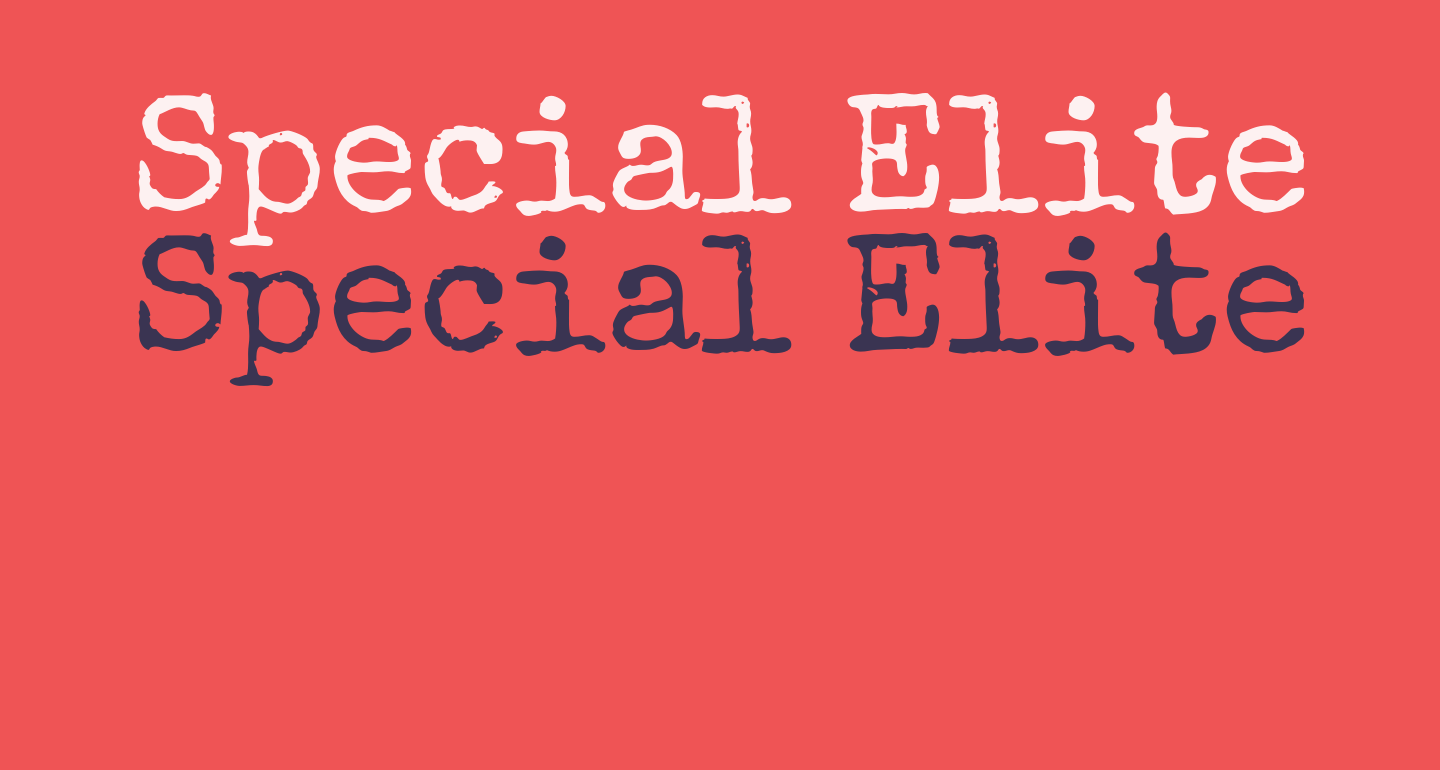
Special Elite Font License . A little bit of inked up grunge and a little old. Special elite mimics the smith corona special elite type number nr6 and remington noiseless typewriter models. Special elite was created to mimic the smith corona special elite type no nr6 and remington noiseless typewriter models. Special elite font is licensed under apache license and free for both personel and commercial usages. Special elite is licensed under the sil open font license, which allows for free use in both personal and commercial. Special elite font is a fancy, typewriter font designed by astigmatic. Even if that means we send you elsewhere to get. This license lets you use, study, modify, and share the font freely. The font special elite is licensed under the sil open font license (ofl).
Special elite is licensed under the sil open font license, which allows for free use in both personal and commercial. A little bit of inked up grunge and a little old. The font special elite is licensed under the sil open font license (ofl). This license lets you use, study, modify, and share the font freely. Special elite font is a fancy, typewriter font designed by astigmatic. Special elite was created to mimic the smith corona special elite type no nr6 and remington noiseless typewriter models. Even if that means we send you elsewhere to get. Special elite font is licensed under apache license and free for both personel and commercial usages. Special elite mimics the smith corona special elite type number nr6 and remington noiseless typewriter models.